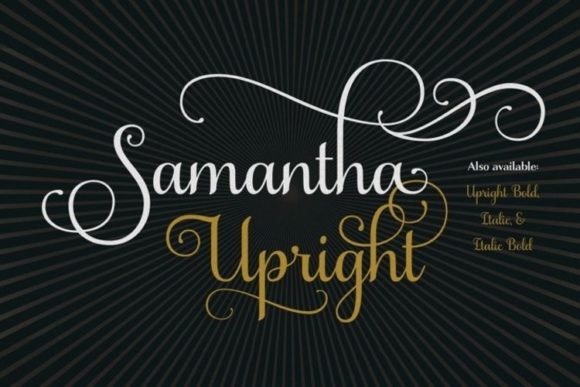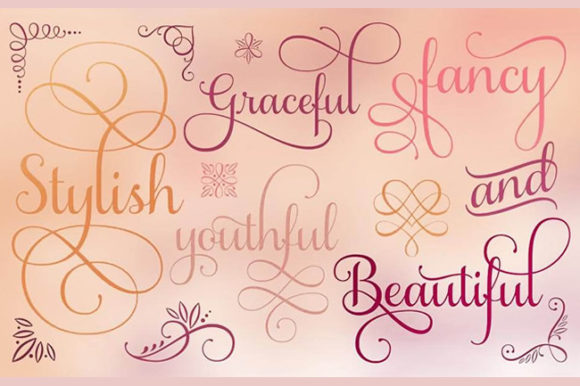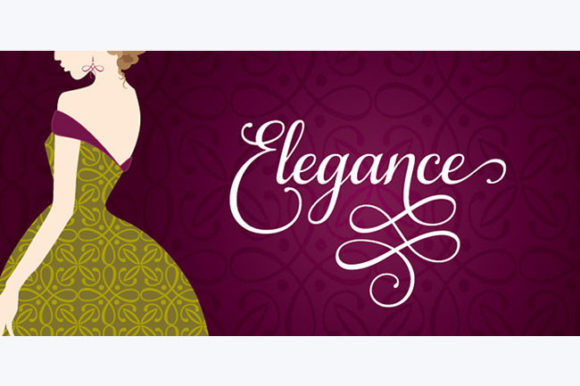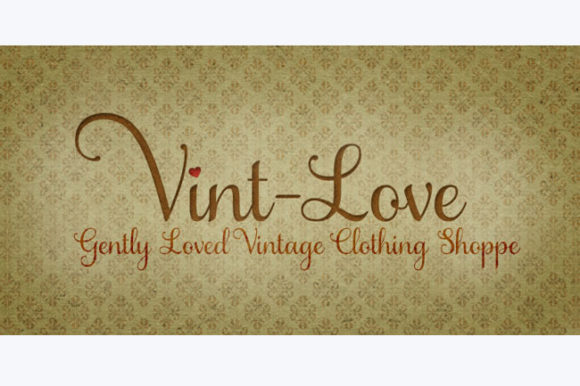
About Samantha Upright Script Font
Based on pointed-pen lettering, Samantha features slightly condensed characters and a measured rhythm. It’s named after my niece who shares its optimistic style and discipline. Samantha is available in upright or italic variants, each with regular and bold weights.
Samantha’s bright, cheerful energy shines through whether it’s set in short blocks of text, or enhanced at display sizes with over 1100 alternates and swash characters that vary in size and complexity. Samantha includes 60 ornaments and 45 catchwords, plus lining numerals and oldstyle numerals, and even swashed figures — ideal for extra-special dates like weddings and parties.
Standard character set
Swash variations
Alternate Letterforms
Discretionary ligatures
Old Style numerals
Swash numerals
Ordinals
60 Ornaments
45 Catchwords